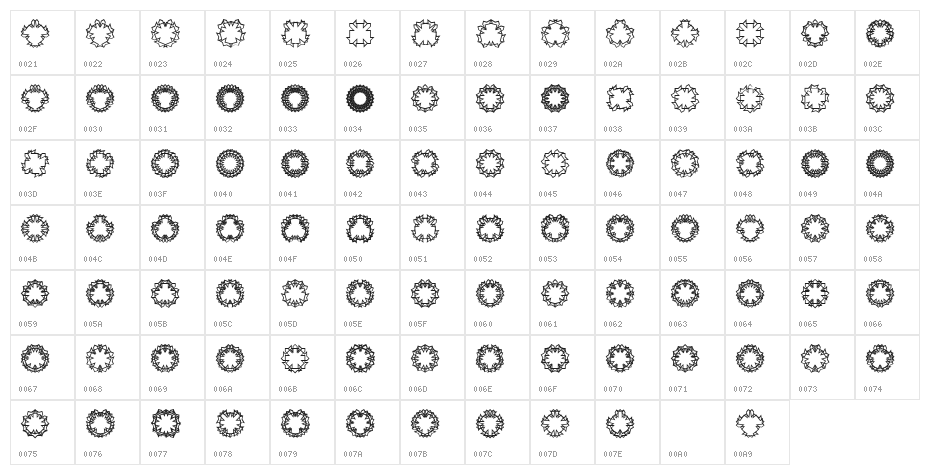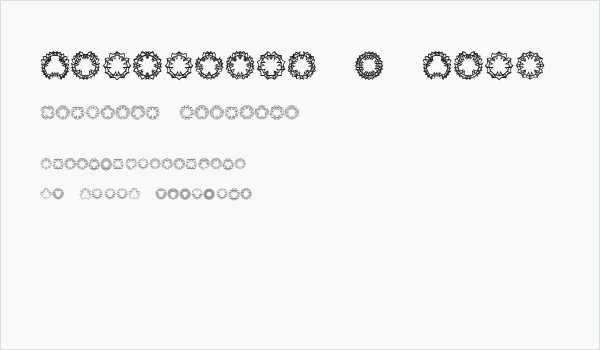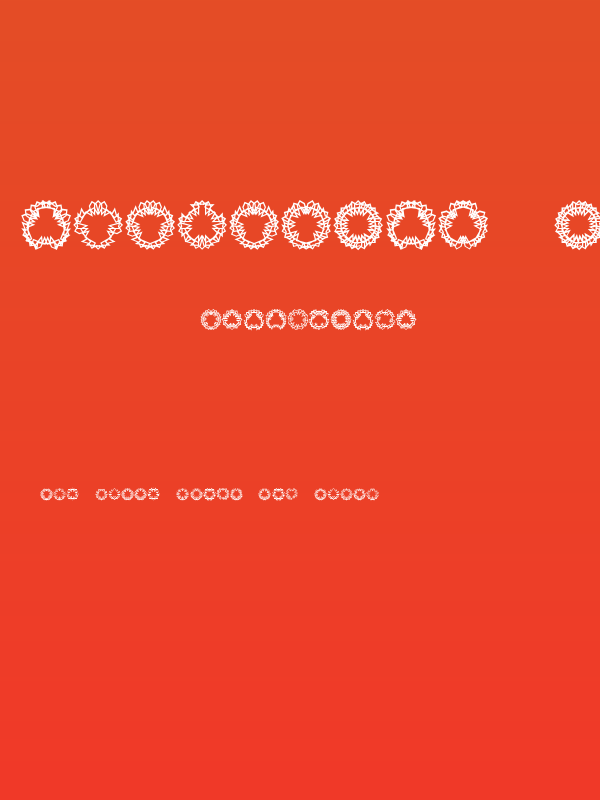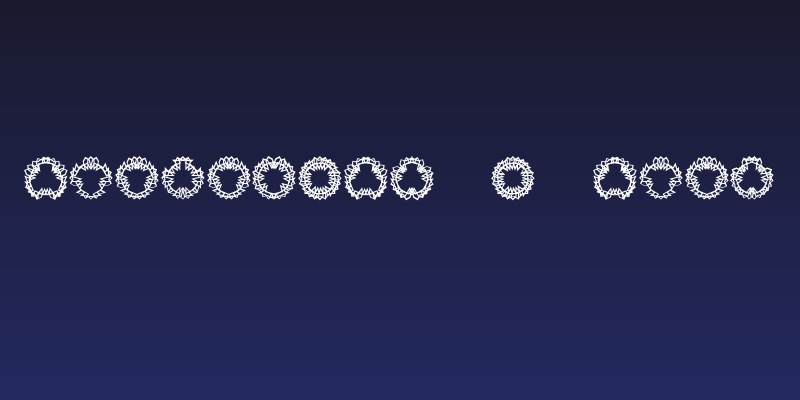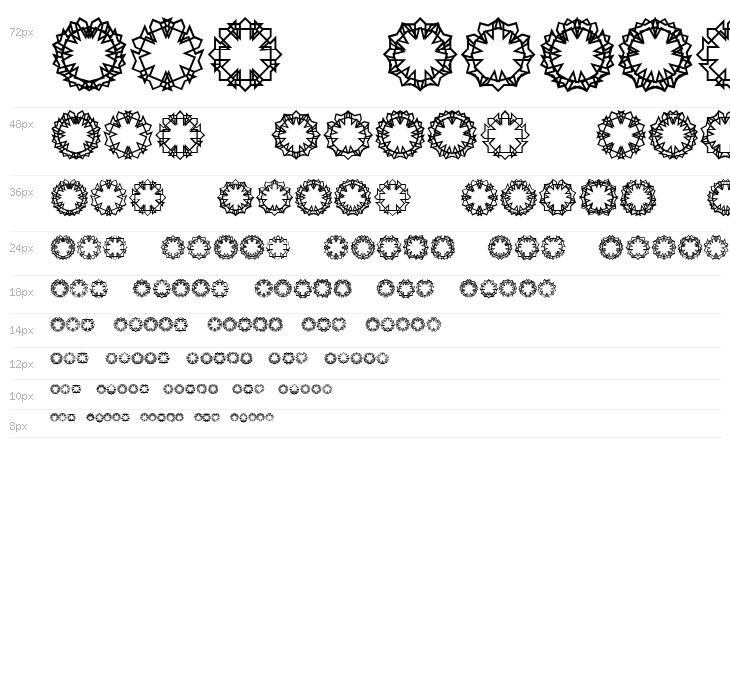
Ovulution I Ovum Font
Ovulution I Ovum Description
This design features a series of circular, intricate patterns that resemble abstract, spiky shapes. Each character is uniquely crafted with a complex arrangement of lines and points, creating a visually striking and decorative appearance. The design is consistent across the set, maintaining a cohesive style that emphasizes geometric intricacy and artistic flair. The patterns are bold and eye-catching, making them suitable for decorative purposes where a strong visual impact is desired. The overall look is modern and artistic, with a hint of abstract expressionism.
| Overall Style | Modern, Artistic |
| Use Case | Decorative elements, Art projects, Branding |
| Proposed Projects | Ideal for decorative art projects, modern design elements, or unique branding materials. |